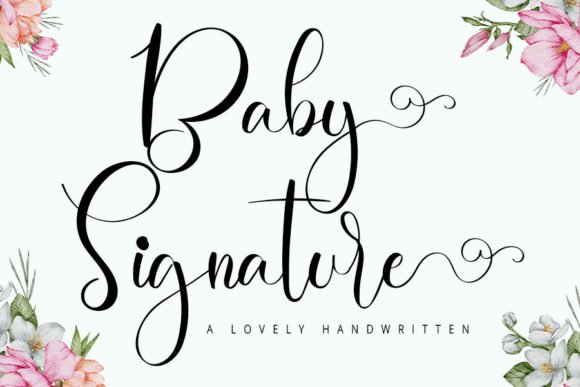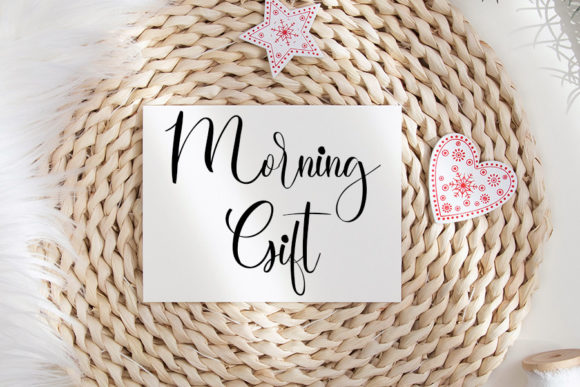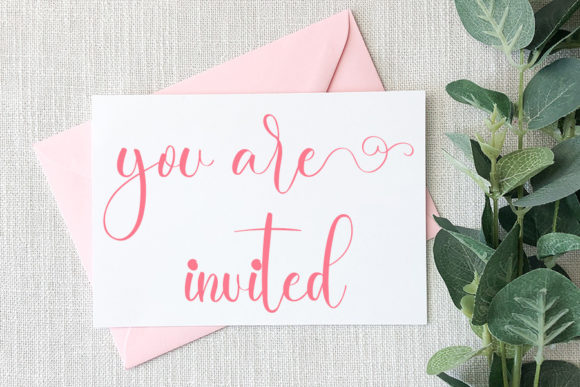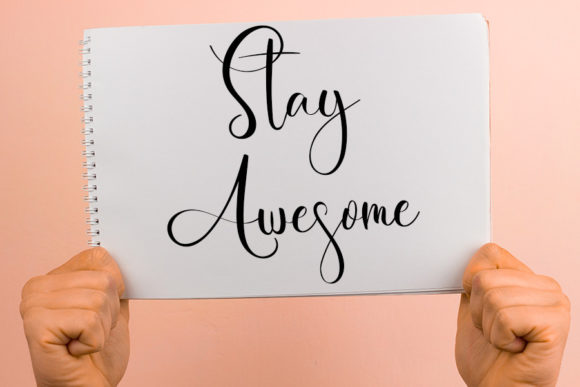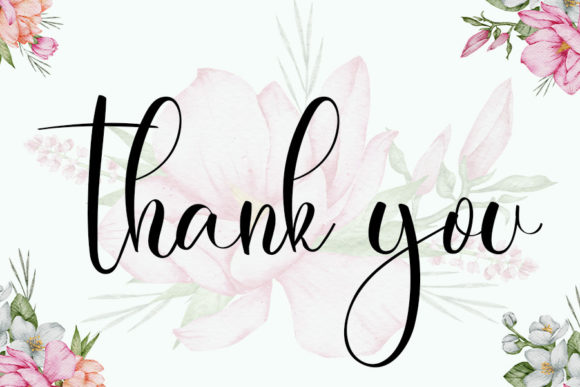
The Charm of Handwritten Touch: Baby Signature Font
Have you ever sat down with a pen and paper, and let the words flow freely onto the page? It’s a moment of pure creativity, where the world fades away and all that’s left is the dance of ink and imagination. For designers, this feeling is what makes the Baby Signature Font so special. With its elegant and charming feel, it’s the perfect tool to add a handwritten touch to any design project.
Whether you’re creating wedding invitations, thank you cards, or business cards, the Baby Signature Font is a versatile and valuable asset in any designer’s toolkit. Its unique charm and elegance make it a standout choice for logos, quotes, and greeting cards, adding a personal and human touch to even the most corporate designs. In short, the Baby Signature Font is a must-have for designers looking to add a little extra magic to their work.
Baby Signature Font Key Features
- Unique Characteristics: Hand-drawn, whimsical design with playful flourishes, ideal for baby-related products and applications
Baby Signature Font Review
Overall, I’d say the Baby Signature Font is a sweet, playful choice for personal or family branding. Here are some things that caught my eye: ✨
- Unique and whimsical feel, perfect for baby-related projects
- Cursive style is quite charming and adds a personal touch
- Comes in a variety of weights and styles, giving you flexibility
However, there are a few limitations to keep in mind: ⚠️
- The font might be too cursive for some projects, potentially making text difficult to read
- Limited language support, which may be a concern for international projects
- May not be suitable for formal or professional applications
Overall, I’d give the Baby Signature Font 3.5 out of 5 stars. While it’s a lovely choice for personal projects, it’s essential to consider the limitations and potential use cases before making a final decision.
Use the Baby Signature Font for personal and professional projects, such as invitations, announcements, and gift tags.
Experiment with different font sizes, colors, and arrangements to create a unique and eye-catching design.
The Baby Signature Font is ideal for:
Personalized gifts and keepsakes.
Baby shower invitations and decorations.
Children’s party invitations and decorations.
Customized baby blankets and onesies.
Alternatives to Baby Signature Font for Designers
Playfair Display is an elegant and luxurious serif font ideal for creating a sophisticated and high-end look. It’s perfect for use in headings, titles, and logos where you want to convey a sense of luxury and refinement.
Compared to Baby Signature Font, Playfair Display has a more formal and traditional feel, while Baby Signature Font is more playful and cursive. Playfair Display is a better choice when you want to convey a sense of sophistication and elegance, whereas Baby Signature Font is better suited for more casual and whimsical designs.
Lobster is a modern and stylish script font that works well for creating a friendly and approachable look. It’s perfect for use in headings, titles, and body text where you want to convey a sense of fun and playfulness.
Compared to Baby Signature Font, Lobster has a more modern and edgy feel, while Baby Signature Font is more classic and traditional. Lobster is a better choice when you want to create a bold and eye-catching design, whereas Baby Signature Font is better suited for more subtle and elegant designs.
Crimson Text is a elegant and refined serif font that works well for creating a sophisticated and classic look. It’s perfect for use in body text, headings, and titles where you want to convey a sense of tradition and heritage.
Compared to Baby Signature Font, Crimson Text has a more formal and traditional feel, while Baby Signature Font is more playful and cursive. Crimson Text is a better choice when you want to create a classic and timeless design, whereas Baby Signature Font is better suited for more modern and whimsical designs.